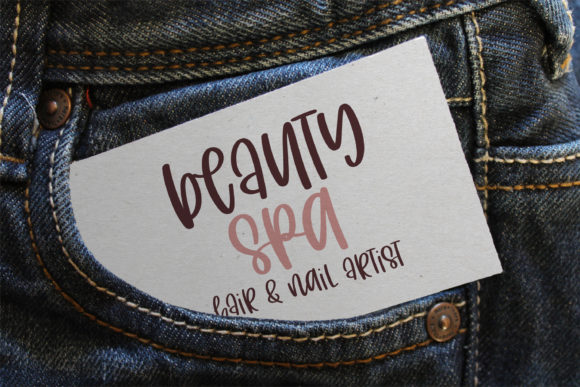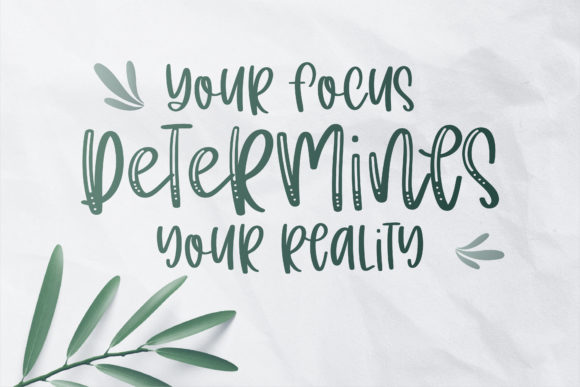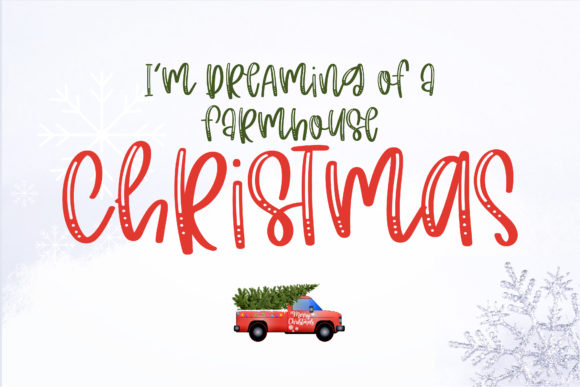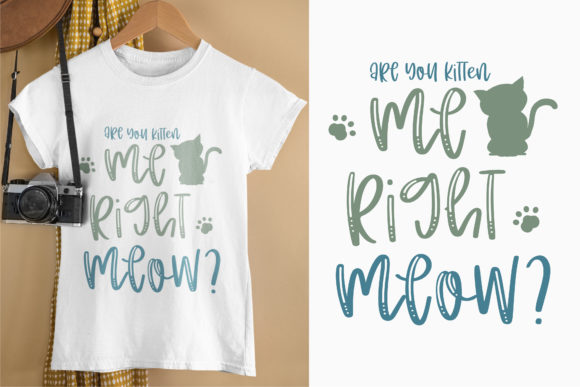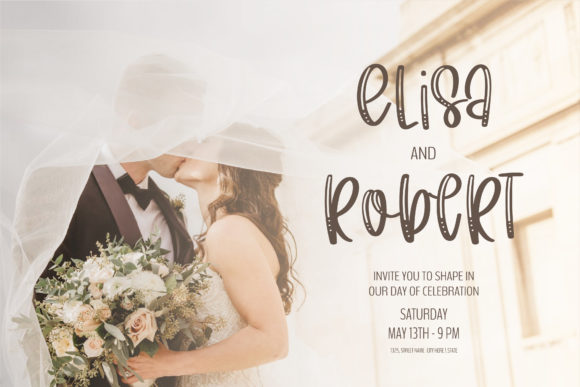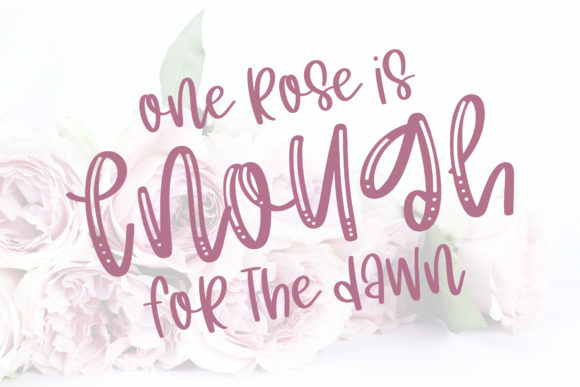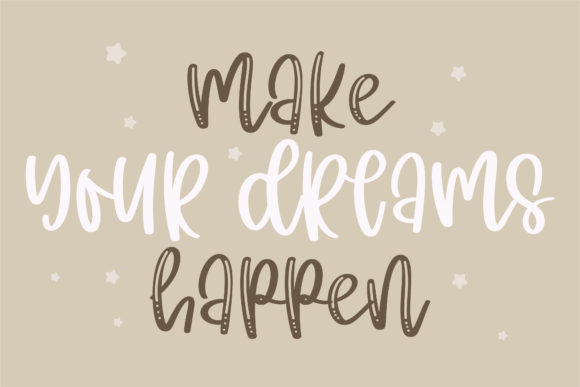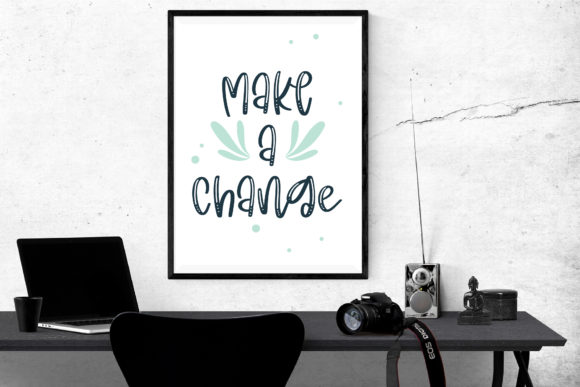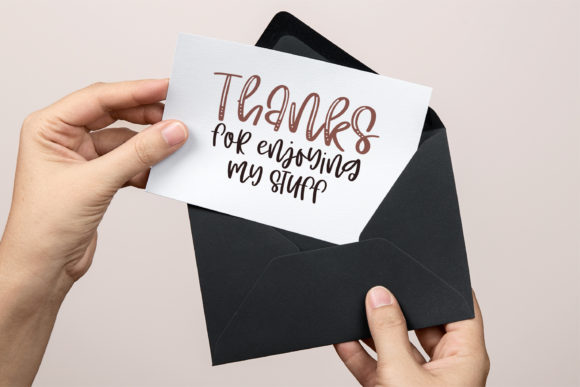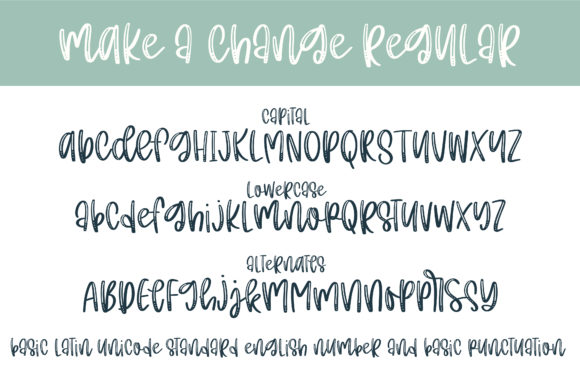
Make a Change Font
About Make a Change Font
Make a change is a fun and informal handwritten font. Its natural and unique style makes it incredibly fitting to a large pool of designs. The only limit is your imagination!